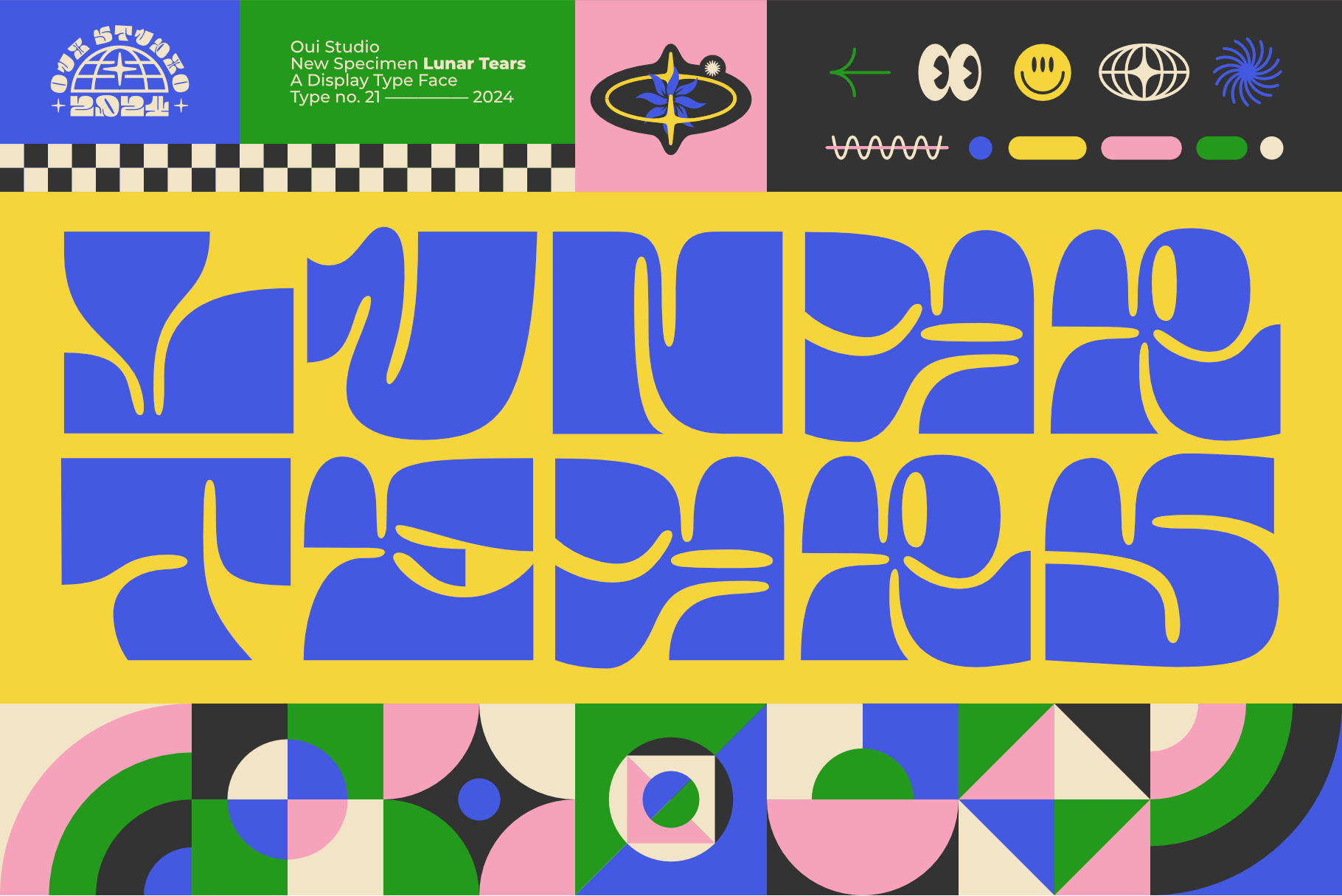
Lunar Tears Groovy Font
Hello friends! The 'Lunar Tears' font is coming, a super fresh groovy font with dynamic styles and a fresh look. Lunar Tears is very inspired by the dynamic and natural shape of gum and the groovy era. Full of fresh color!
Lunar Tears has wavy corners and dynamic thickness. It's perfect for branding, logos, invitations, greeting cards, packaging, graphic tee, posters, digital or print stuff, artwork, products, etc.